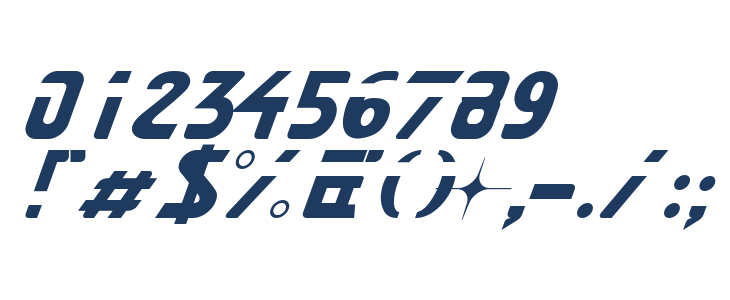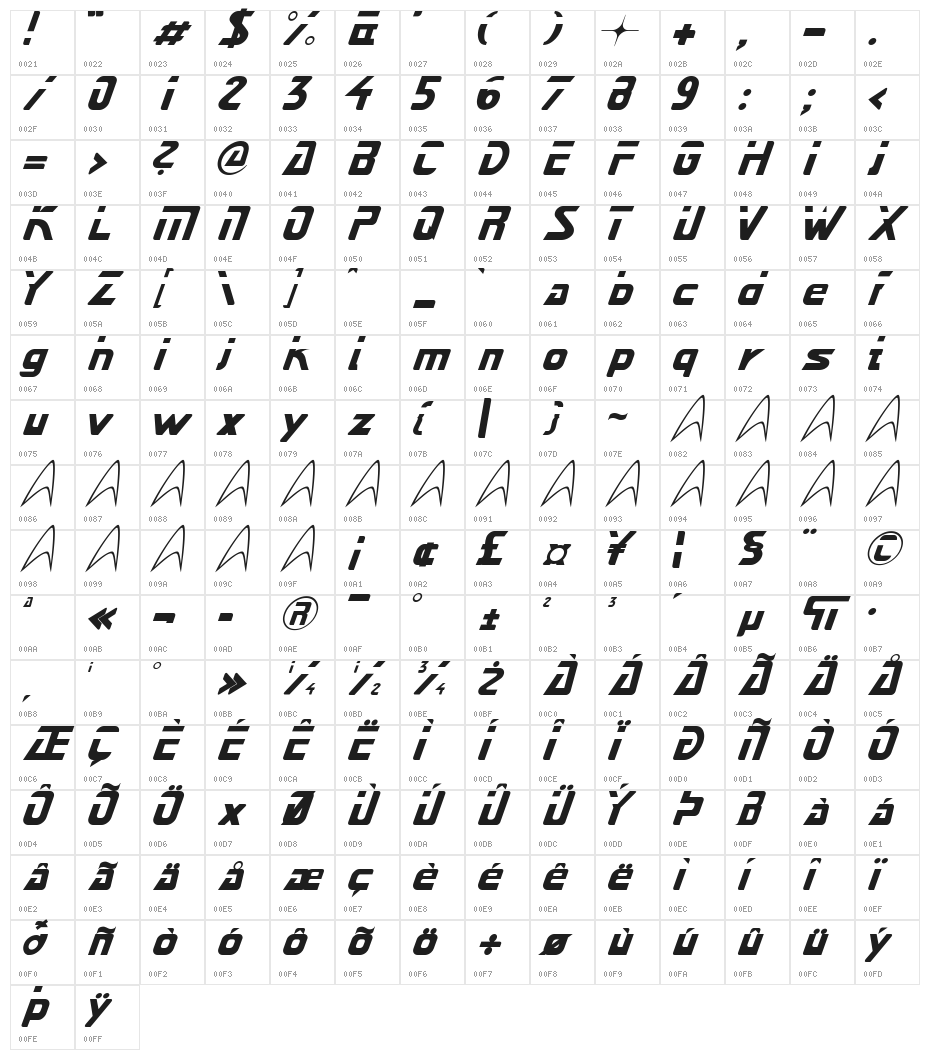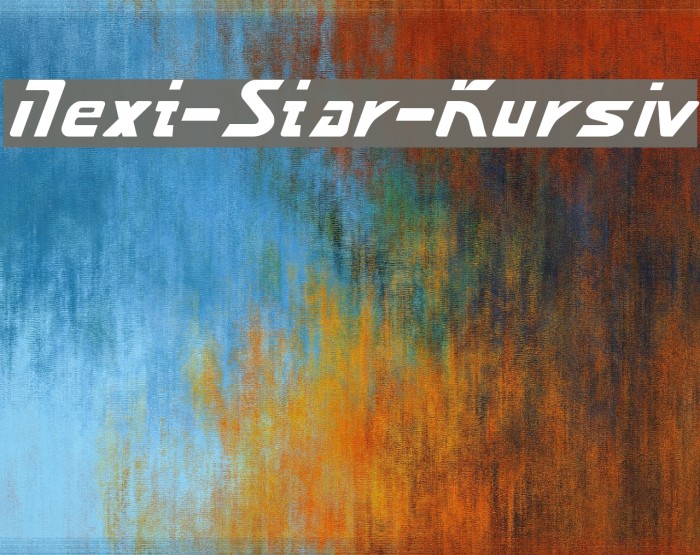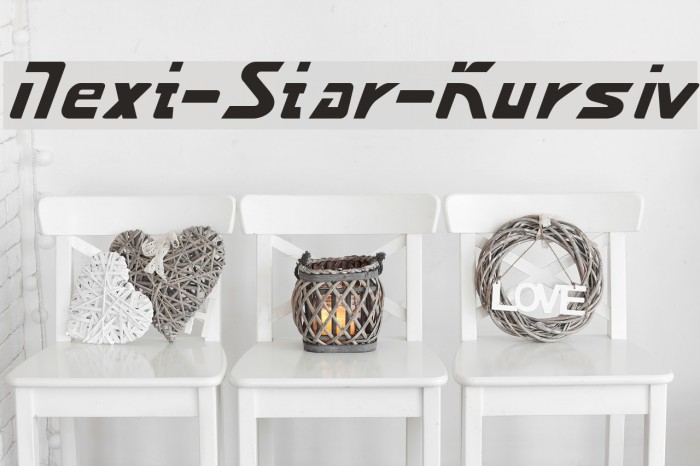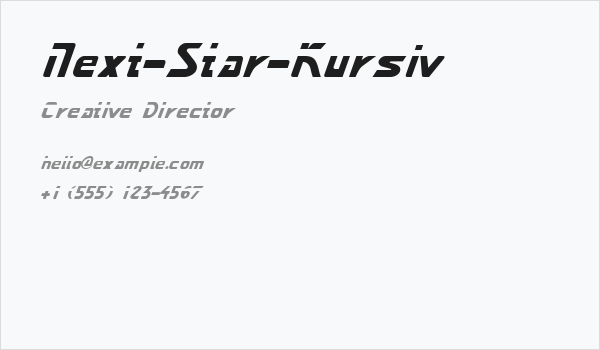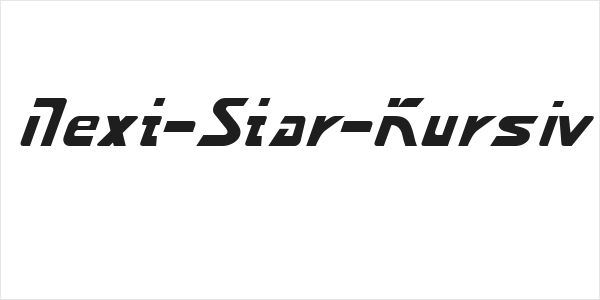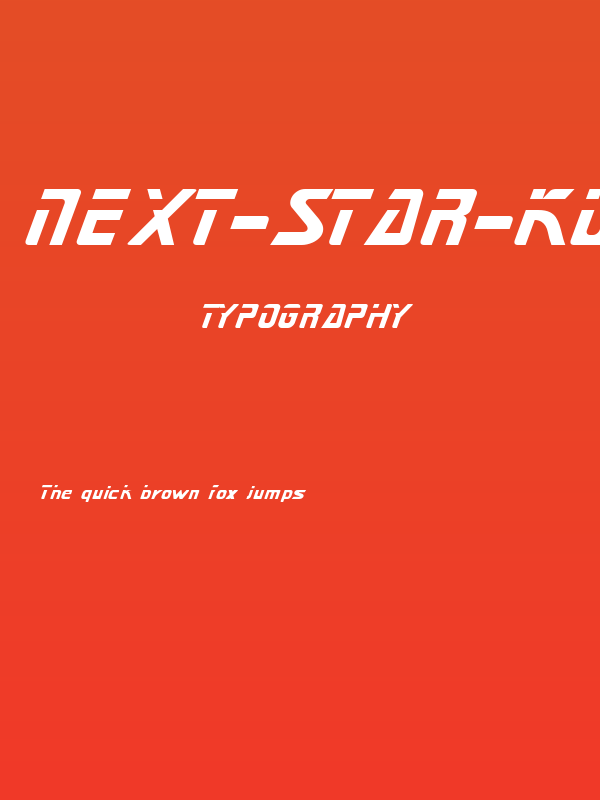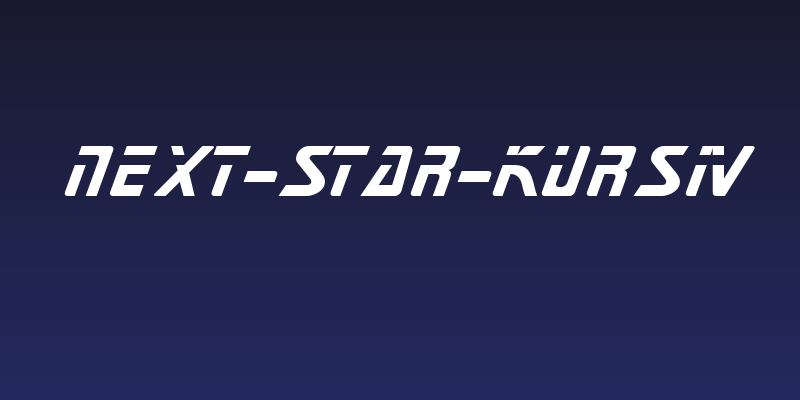
Next-Star-Kursiv Font
Next-Star-Kursiv Description
This font features a dynamic and modern design with a distinct slant, giving it a sense of motion and energy. The characters are bold and slightly condensed, with a futuristic aesthetic that is both sleek and stylish. The uppercase and lowercase letters maintain a consistent style, with sharp angles and clean lines that enhance readability. The numerals and special characters are designed to match the overall style, ensuring a cohesive look across all text. This font's unique design makes it suitable for projects that require a contemporary and edgy appearance.
A modern, slanted font with bold, sleek characters and a futuristic style from Futuristic fonts.
• Proposed Projects: Ideal for branding, advertising, technology-related designs, and modern editorial layouts.
• Bold: Yes
• Italic: Yes
• Weight: Bold
• Width: Condensed
• Character Spacing: Normal
• Contrast: Medium
• Overall Style: Modern
• Use Case: Headlines, Logos, Branding